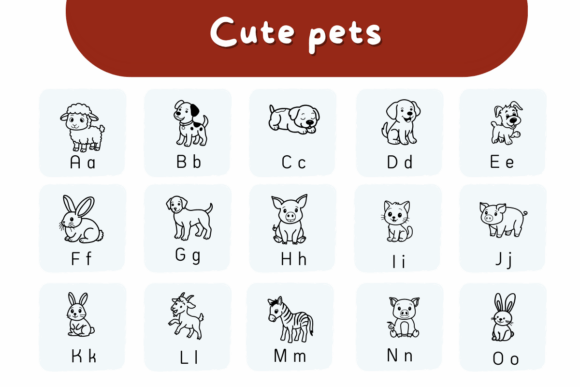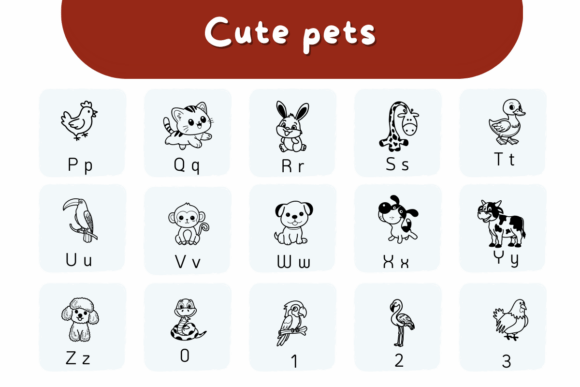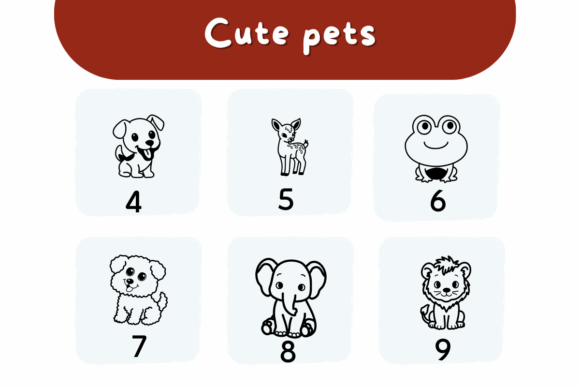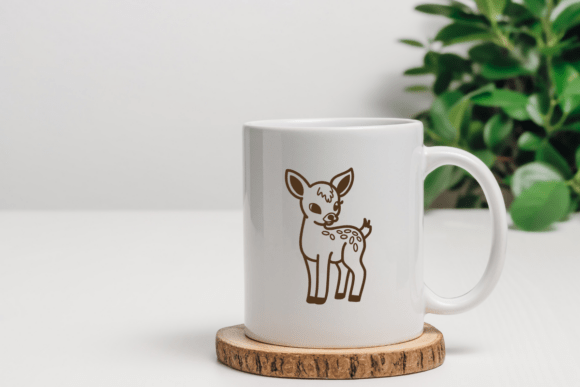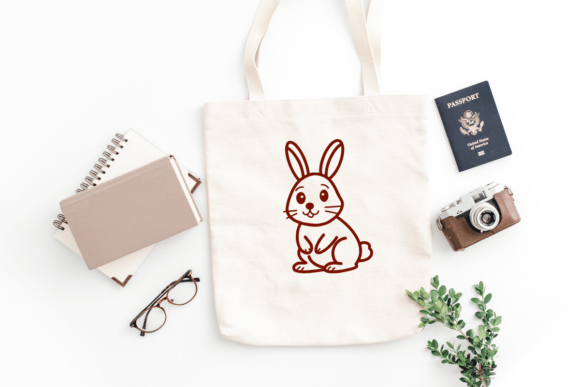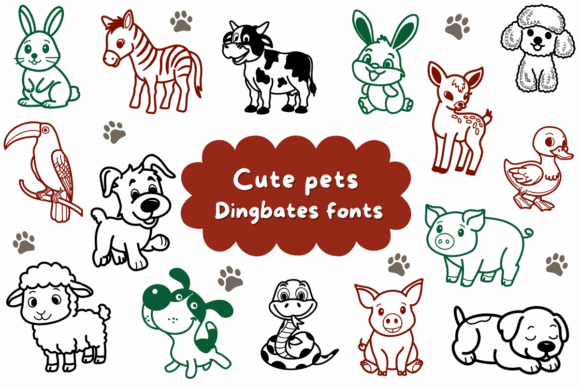
Cute Pets Font: Bring Your Designs to Life with Adorable Illustrations
Are you looking for a unique and engaging way to add some personality to your designs? Look no further than the Cute Pets font, a delightful collection of handcrafted animal illustrations that are sure to capture the hearts of designers, crafters, and animal lovers alike. This specialized symbol font features over a dozen expressive illustrations of cute pets, ranging from playful puppies and curious bunnies to exotic zebras and friendly farm animals.
What is Cute Pets Font?
Cute Pets is a dingbat font that offers a wide range of adorable animal illustrations, carefully crafted to bring a touch of whimsy and fun to your designs. Unlike traditional fonts, dingbat fonts are made up of symbols and illustrations rather than letters and numbers. This makes them perfect for adding visual interest and personality to your layouts, without the need for complicated graphics or illustrations.
Key Features of Cute Pets Font
• Handcrafted illustrations: Each of the animal illustrations in the Cute Pets font has been carefully handcrafted to ensure a high level of detail and personality.
• Scalable vectors: Because the Cute Pets font is made up of vector-based illustrations, you can easily scale them to any size without losing crispness or quality.
• Easy color changes: With the Cute Pets font, you can easily change colors to match your brand or design scheme, adding an extra level of flexibility to your designs.
• Over a dozen illustrations: The Cute Pets font features over a dozen unique animal illustrations, giving you a wide range of options to choose from.
Best Uses for Cute Pets Font
The Cute Pets font is incredibly versatile, making it perfect for a wide range of design projects. Here are some of the best uses for this delightful font:
• Educational worksheets: Add a touch of fun and personality to your educational worksheets with the Cute Pets font, making learning more engaging and enjoyable for students.
• Children’s event flyers: Create eye-catching and engaging flyers for children’s events, such as birthday parties, petting zoos, or animal encounters.
• DIY sticker design: Use the Cute Pets font to create adorable stickers for kids, pet owners, or animal lovers, perfect for scrapbooking, journaling, or decorating.
• Animal shelter branding: Help animal shelters and rescue organizations stand out with a custom brand identity featuring the Cute Pets font.
• Nursery decor: Add a touch of whimsy and fun to nursery decor with the Cute Pets font, perfect for wall art, decals, or fabric design.
Tips and Inspiration for Using Cute Pets Font
To get the most out of the Cute Pets font, here are some tips and inspiration to keep in mind:
• Mix and match illustrations: Combine different animal illustrations to create unique and engaging compositions.
• Experiment with colors: Try out different color schemes and palettes to find the perfect match for your design.
• Add text and typography: Pair the Cute Pets font with other typography to create visually appealing and balanced designs.
• Use for seasonal designs: Incorporate the Cute Pets font into seasonal designs, such as Easter or Christmas-themed projects, for a fun and festive touch.
The Cute Pets font is a delightful and versatile collection of handcrafted animal illustrations that are sure to bring a touch of personality and whimsy to your designs. With its scalable vectors, easy color changes, and wide range of illustrations, this font is perfect for designers, crafters, and animal lovers alike. Whether you’re creating educational worksheets, children’s event flyers, or nursery decor, the Cute Pets font is sure to inspire and delight.